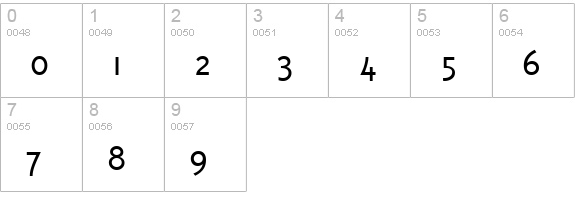
TriplexLightOldstyle Regular Font Details
TriplexLightOldstyle Regular is the standard, neutral variant in the TriplexLightOldstyle typeface family \xE2\x80\x94 well suited to general body text, paragraphs, and standard typographic work.
TriplexLightOldstyle Regular is a timeless and elegant font that exudes sophistication and grace. With its classic design and clean lines, this font is perfect for adding a touch of refinement to any project. The letters are carefully crafted with a balance of proportion and weight, creating a harmonious and pleasing aesthetic. This font features a light weight, making it versatile and suitable for a wide range of applications. Whether it is used for headlines, body text, or in logos, TriplexLightOldstyle Regular delivers a clear and crisp visual impact. What sets TriplexLightOldstyle Regular apart is its availability as a free download. That's right, this extraordinary font can be obtained at no cost, making it an invaluable asset for designers, creatives, and enthusiasts alike. To access this font, simply visit FontsMarket.com, where you can easily download it and start using it in your projects. Don't miss out on this opportunity to add a touch of sophistication to your designs with TriplexLightOldstyle Regular. Download it now for free and elevate your typographic creations to the next level.